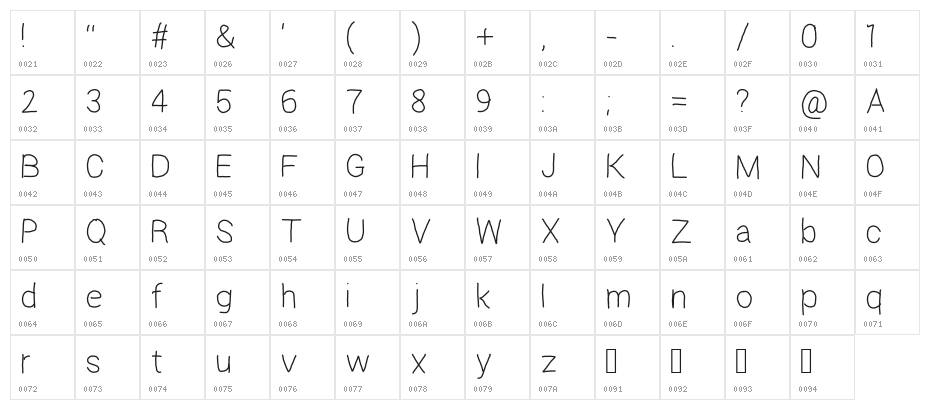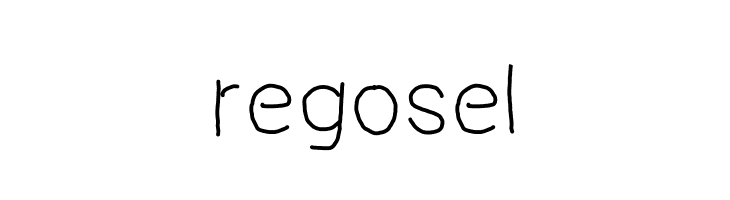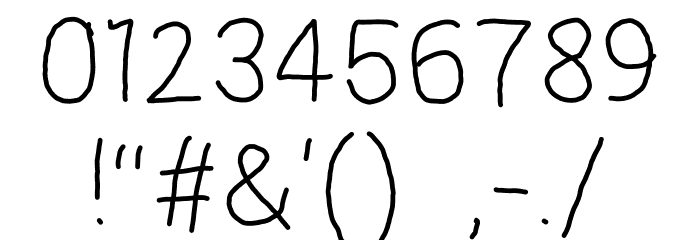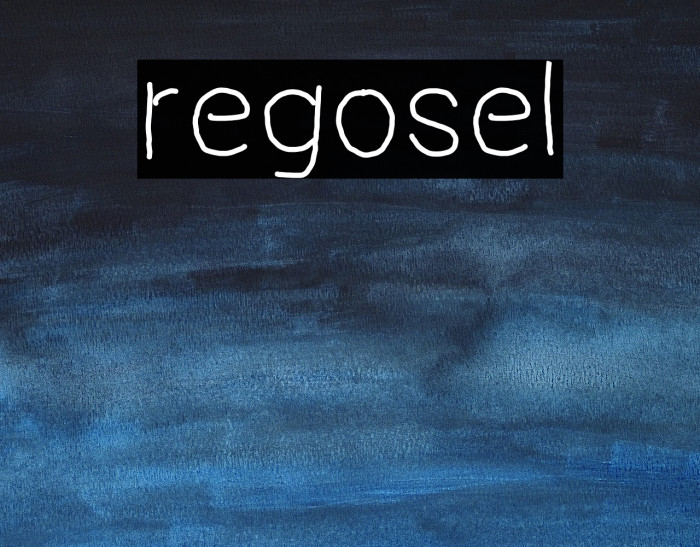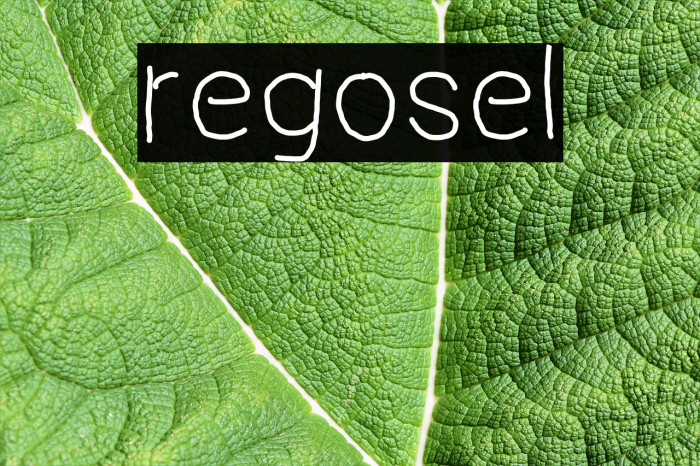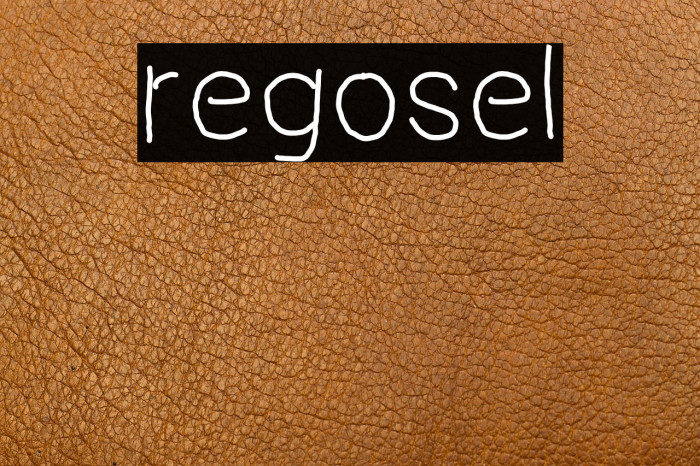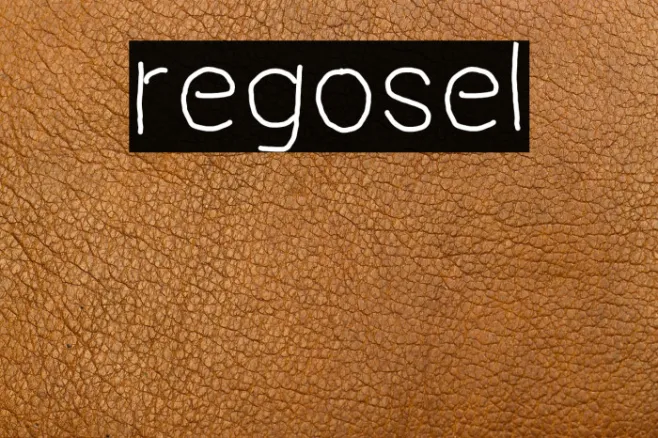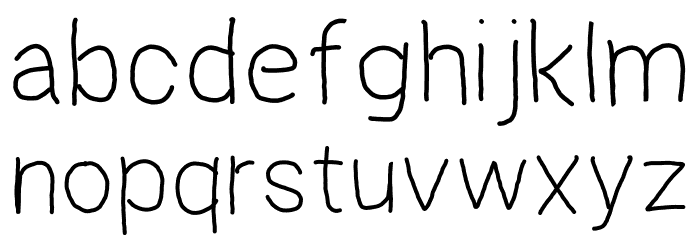
regosel Font
regosel Description
This font features a handwritten style with a casual and organic appearance. The letters have a slightly irregular form, giving them a personal and approachable feel. The strokes are consistent in weight, providing a uniform look across all characters. The uppercase and lowercase letters maintain a cohesive design, while the numerals and special characters complement the overall aesthetic. This font is versatile, suitable for projects that require a touch of personality and informality.
| Use Case | Logos, Headlines, Informal Text |
| Proposed Projects | Ideal for personal invitations, greeting cards, casual branding, and social media graphics. |